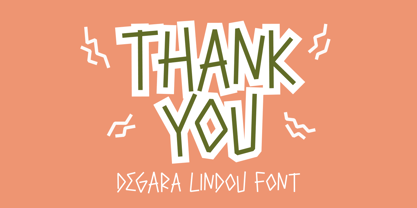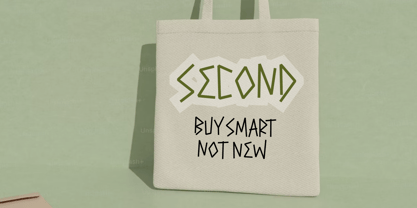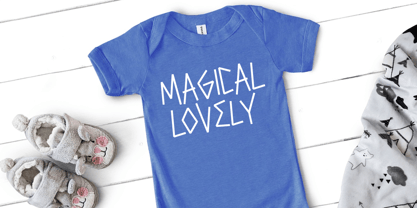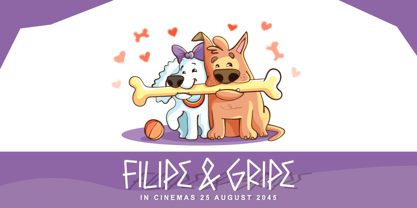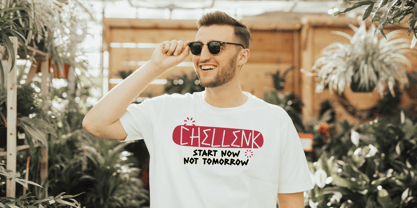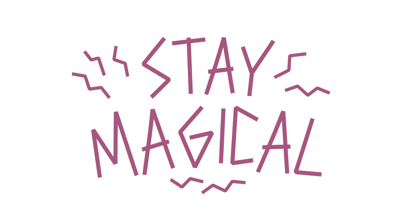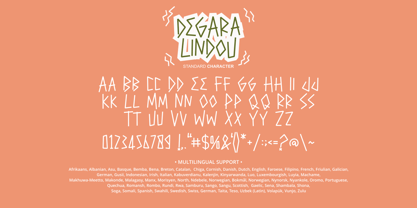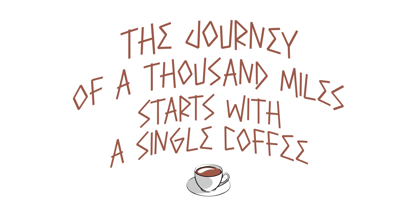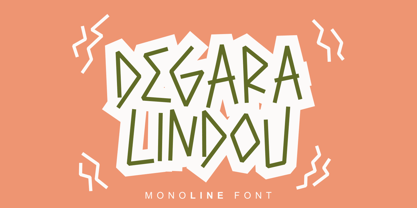
Degara Lindou
von Mabhal Studio
Die Schriftfamilie Degara Lindou wurde von Abdullah Mabhal entworfen und von Mabhal Studio veröffentlicht. Degara Lindou enthält 1 Stile. Mehr über diese Familie
Degara Lindou is a unique monoline display font featuring a quirky, hand-drawn aesthetic with sharp, angular strokes. Its playful and tribal-inspired design makes it ideal for children's books, logo branding, social media quotes, and creative merchandise like tote bags or t-shirts. This versatile font includes uppercase letters, numerals, and punctuation with multilingual support, ensuring a bold and standout look for all your graphic design needs.
Designer: Abdullah Mabhal
Foundry: Mabhal Studio